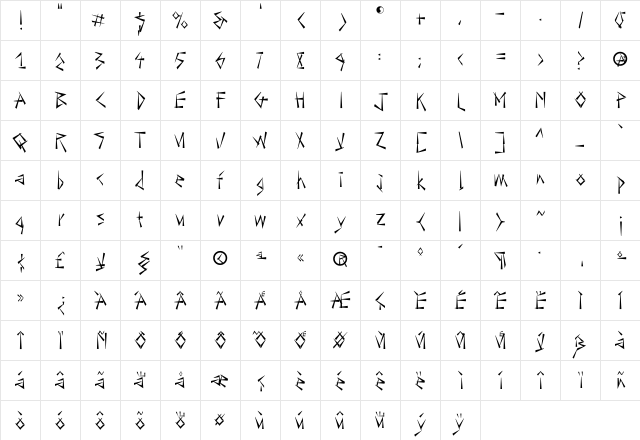
LTTiger Tame Regular Free Font
LTTiger Tame Regular
Design Context for LTTiger Tame
LTTiger Tame is a composed and adaptable typeface that performs quietly and consistently across a wide range of design contexts.